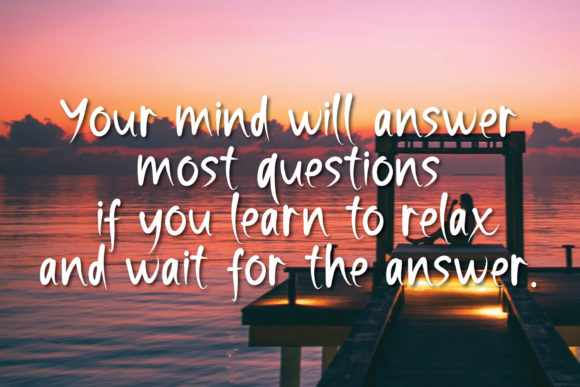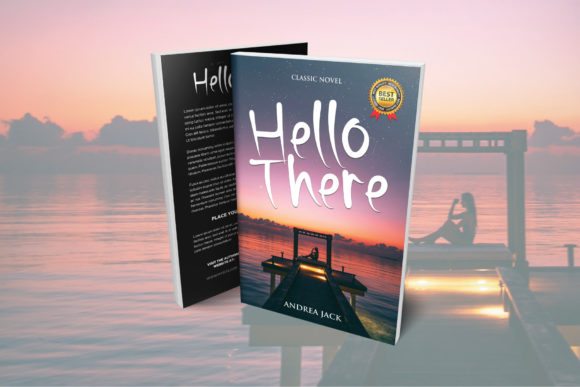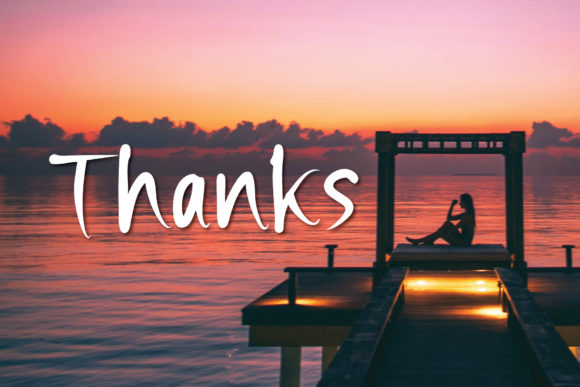
Introduction to Relaxing Night Font
Relaxing Night is a distinctive handwritten font.
The characters are hand drawn in order to give a natural look Relaxing Night is perfect for novel titles, novel texts, childrenโs books and other creative designs.
Key Features of Relaxing Night Font